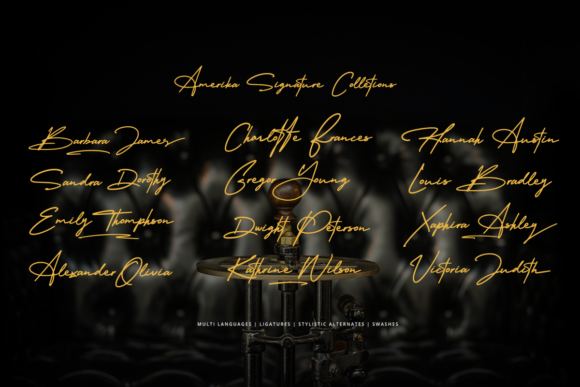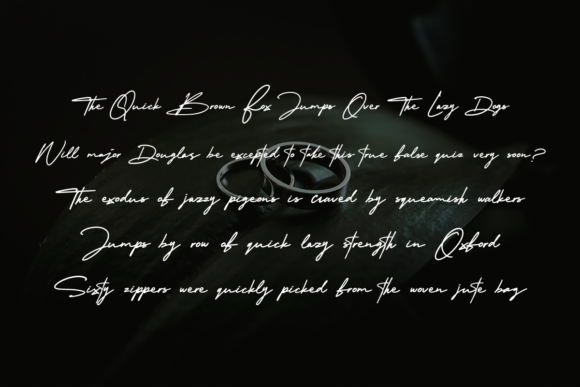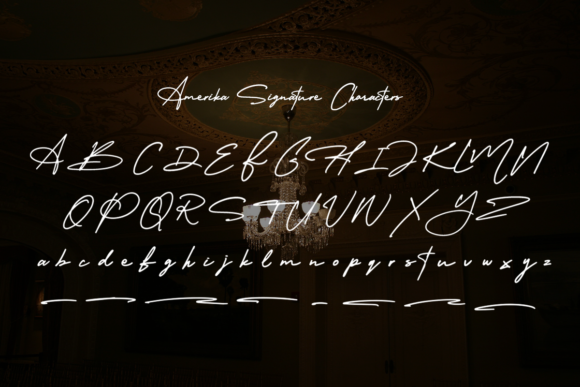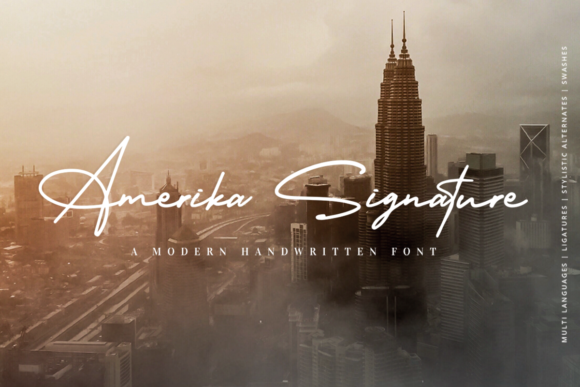
Introducing Amerika Signature Font: Elevate Your Designs with Elegance and Sophistication
In the world of design, typography plays a crucial role in conveying the tone and aesthetic of a brand or project. For designers and crafters seeking a font that exudes class, elegance, and modernity, Amerika Signature is an exceptional choice. This beautiful handwritten font is versatile, stylish, and perfect for a wide range of applications, from logos and branding to invitations, stationery, and social media posts.
The Essence of Amerika Signature Font
Amerika Signature is a fashionable and beautiful handwritten font that boasts a classy, elegant, and modern look. Its unique charm lies in its ability to add a touch of sophistication to any design, making it an ideal choice for designers and crafters who want to create stunning visual content. The font’s versatility allows it to be used across various platforms, including digital and print materials.
Endless Design Possibilities with Amerika Signature
One of the standout features of Amerika Signature is its incredible versatility. This font can be used for a multitude of design projects, including:
- Invitations and Stationery: Add a touch of elegance to your invitations, business cards, and letterheads.
- Wedding Designs: Make your wedding stationery, such as invitations, programs, and place cards, truly unforgettable.
- Social Media Posts: Elevate your social media content with stylish and eye-catching text that sets you apart.
- And much more! From packaging to advertising, Amerika Signature can be used in countless other design applications.
Why Choose Amerika Signature Font?
With so many fonts available, why should designers and crafters choose Amerika Signature? Here are just a few compelling reasons:
- Unique and Memorable: Amerika Signature’s distinctive style ensures that your designs will stand out from the crowd.
- Elegant and Sophisticated: This font’s classy and modern look makes it perfect for high-end brands and designs.
- Easy to Read: Despite its elegant appearance, Amerika Signature remains highly legible, even at smaller font sizes.
- Highly Versatile: Use Amerika Signature across various design projects, from digital to print materials.
Tips for Using Amerika Signature Font Effectively
To get the most out of Amerika Signature, consider the following tips:
- Pair with Complementary Fonts: Combine Amerika Signature with simpler fonts to create visual interest and hierarchy.
- Experiment with Colors: Try different color schemes to find the perfect match for your brand or design.
- Play with Sizes: Use varying font sizes to add emphasis and create a visually appealing design.
Amerika Signature Font is a stunning handwritten font that offers designers and crafters a world of creative possibilities. Its elegant, modern, and classy appearance makes it perfect for a wide range of design applications. Whether you’re looking to create a memorable logo, stylish social media content, or beautiful wedding stationery, Amerika Signature is an excellent choice. With its versatility, readability, and unique charm, this font is sure to elevate your designs and leave a lasting impression.